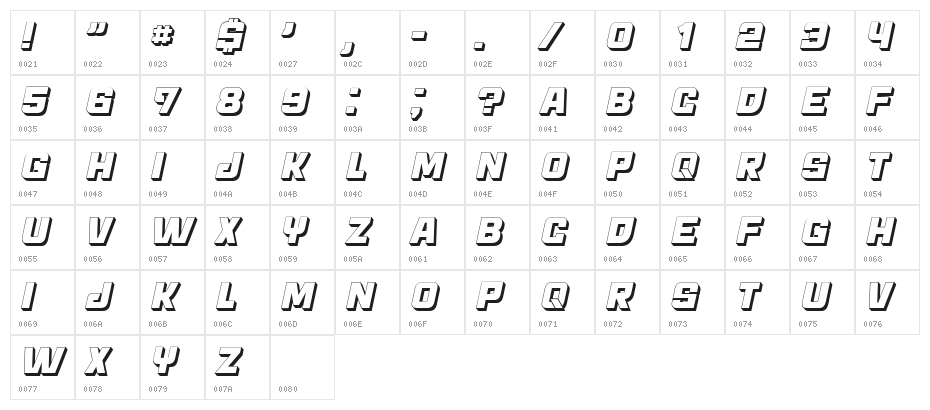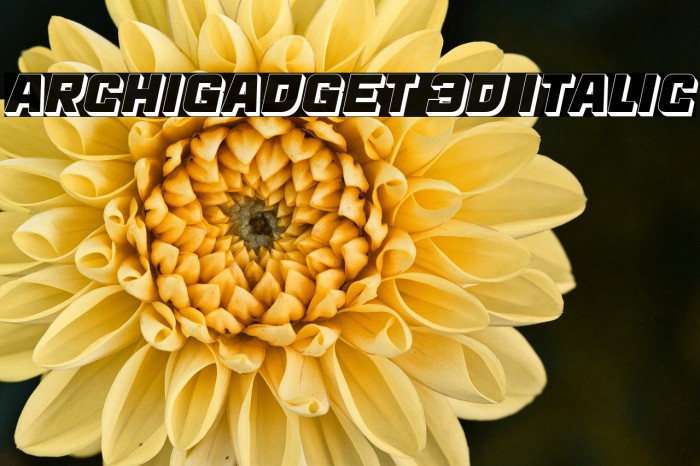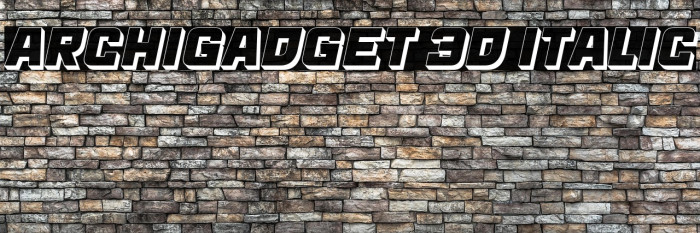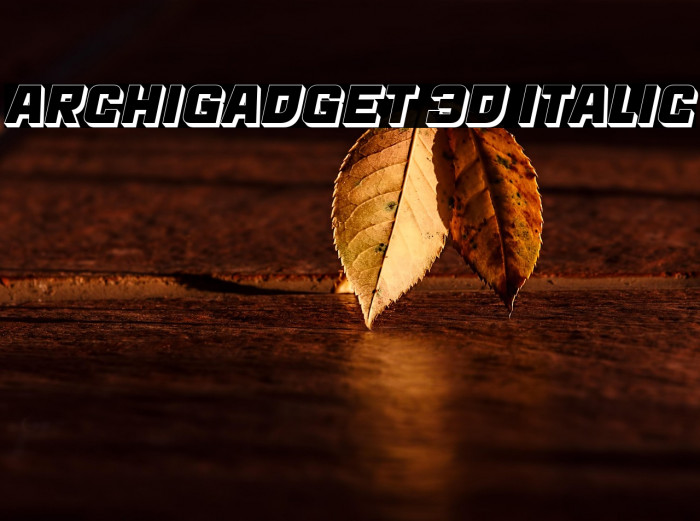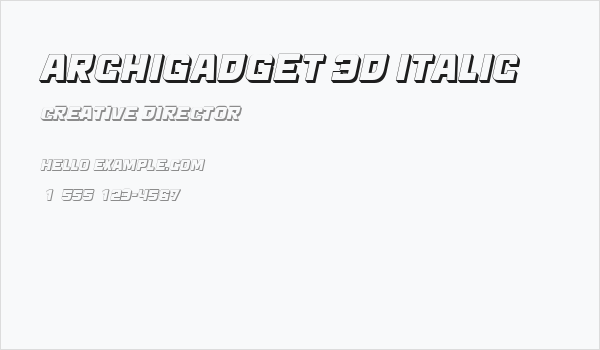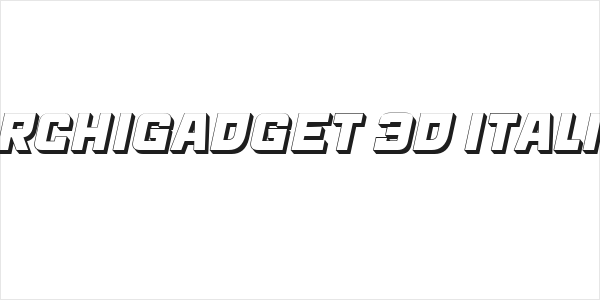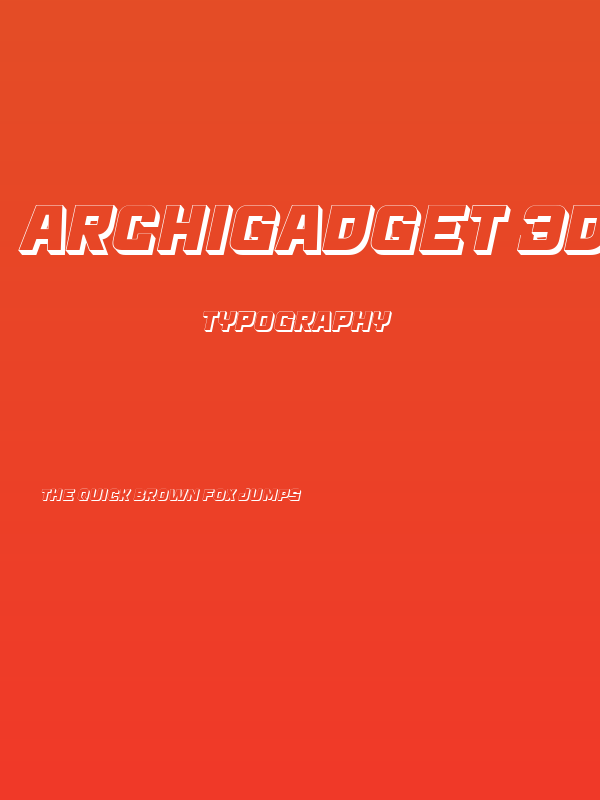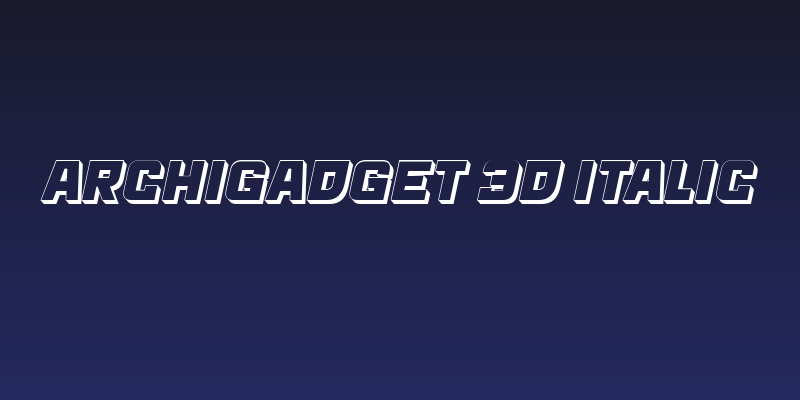
Archigadget 3D Italic Font
Archigadget 3D Italic Description
This font features a bold, three-dimensional style with a strong italic slant, giving it a dynamic and futuristic appearance. The characters are outlined with a shadow effect, enhancing the 3D illusion and adding depth. The uppercase letters are robust and angular, while the numerals and special characters maintain the same bold and impactful design. This font is ideal for creating eye-catching headlines or logos that require a modern and energetic feel. The spacing between characters is tight, contributing to its compact and cohesive look.
| Proposed Projects | Ideal for futuristic branding, tech-related logos, video game titles, and dynamic poster designs. |